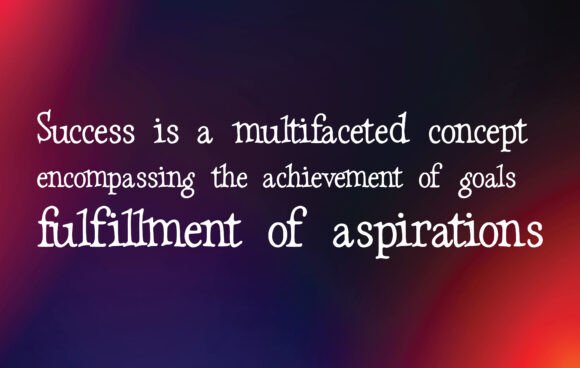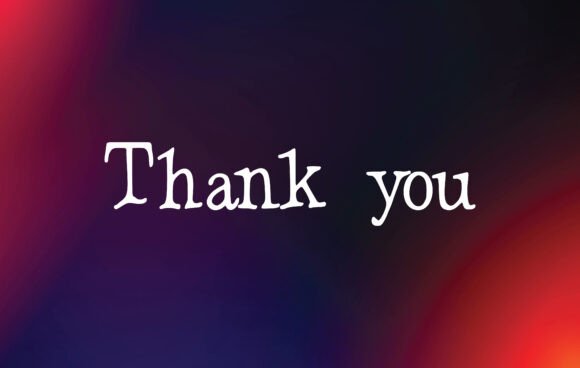
Crocodile Font: Elevate Your Designs with a Roaring Favorite
Are you tired of using the same old fonts in your designs? Look no further than the Crocodile Font, a versatile and stylish typeface that’s sure to become a true favorite in your creative arsenal. With its unique blend of legibility and visual appeal, this font is perfect for taking your ideas to the next level.
What Makes Crocodile Font So Special?
Designed with creativity in mind, the Crocodile Font boasts a distinctive style that’s both eye-catching and easy to read. Whether you’re using it as a title or body text, this font looks great in a variety of contexts, making it an excellent choice for designers and crafters looking to add a touch of personality to their work.
One of the best things about the Crocodile Font is its incredible versatility. Its clean lines and stylish aesthetic make it perfect for a wide range of design applications, including:
- Magazine headlines: Make a bold statement with eye-catching titles that grab readers’ attention.
- T-shirts and apparel: Create stylish and memorable designs that stand out from the crowd.
- Social media graphics: Elevate your online presence with professional-looking graphics that showcase your brand’s personality.
- Branding and logos: Establish a strong visual identity with a custom logo or branding elements that reflect your unique style.
- Wedding invitations and cards: Add a touch of elegance and sophistication to your special occasion stationery.
Why Choose Crocodile Font?
So why should you choose the Crocodile Font for your next design project? Here are just a few compelling reasons:
- Legibility: The Crocodile Font is designed to be easy to read, making it perfect for body text or longer blocks of content.
- Visual appeal: With its unique style and clean lines, this font is sure to add a touch of personality to your designs.
- Versatility: Whether you’re designing for print or digital, the Crocodile Font is adaptable to a wide range of applications.
- Creativity: This font is designed to inspire creativity and help you take your ideas to new heights.
Tips for Using Crocodile Font
To get the most out of the Crocodile Font, here are a few tips to keep in mind:
- Experiment with different sizes: The Crocodile Font looks great in a variety of sizes, from large headlines to smaller body text.
- Play with colors: Try pairing the font with different colors to create a unique and eye-catching design.
- Mix and match: Combine the Crocodile Font with other typefaces to create a custom look that reflects your brand’s personality.
In conclusion, the Crocodile Font is a versatile and stylish typeface that’s perfect for designers and crafters looking to elevate their creative projects. With its unique blend of legibility and visual appeal, this font is sure to become a true favorite in your design arsenal. So why wait? Download the Crocodile Font today and start taking your designs to new heights!